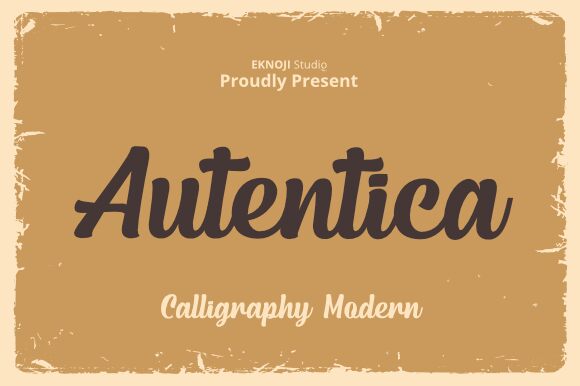
Autentica is a bold modern calligraphy script font designed by EKNOJI Studio. It's perfect for creating sophisticated logos, invitations, posters, or any design project with a modern touch.